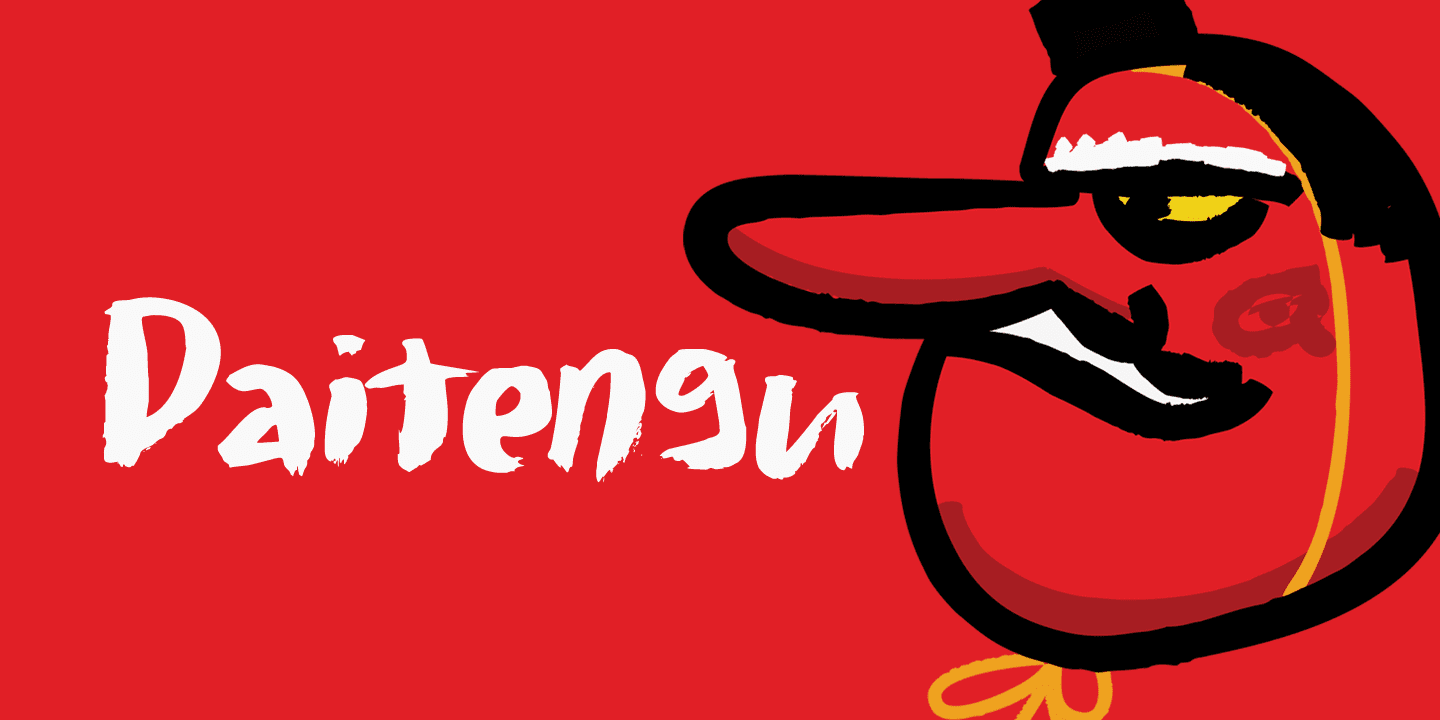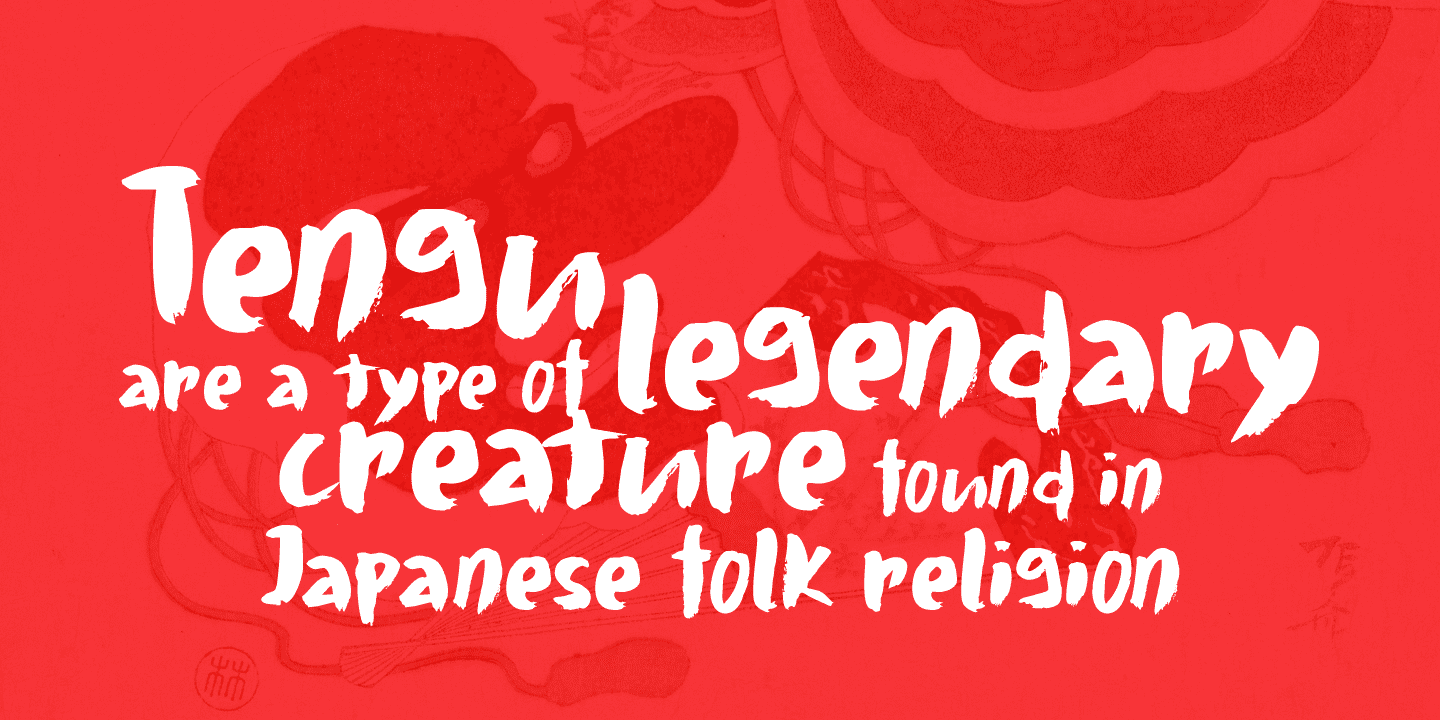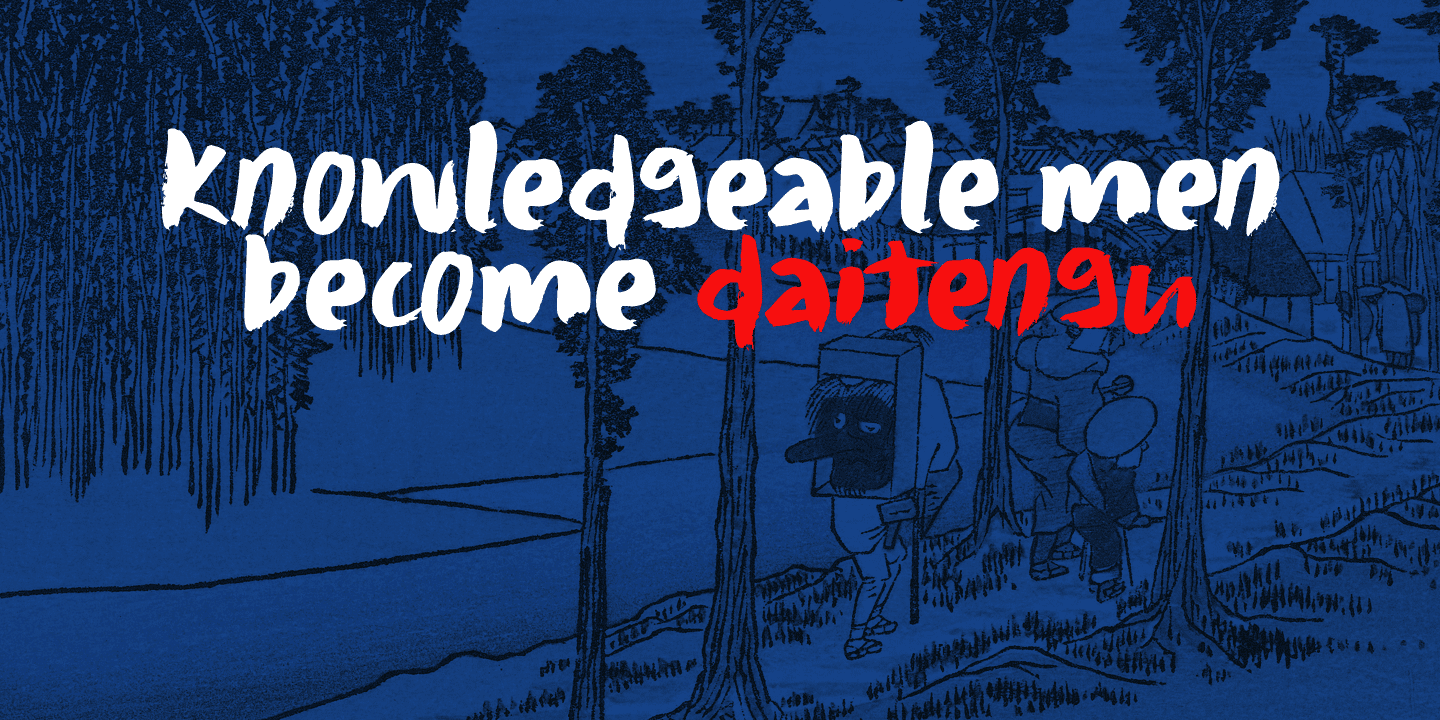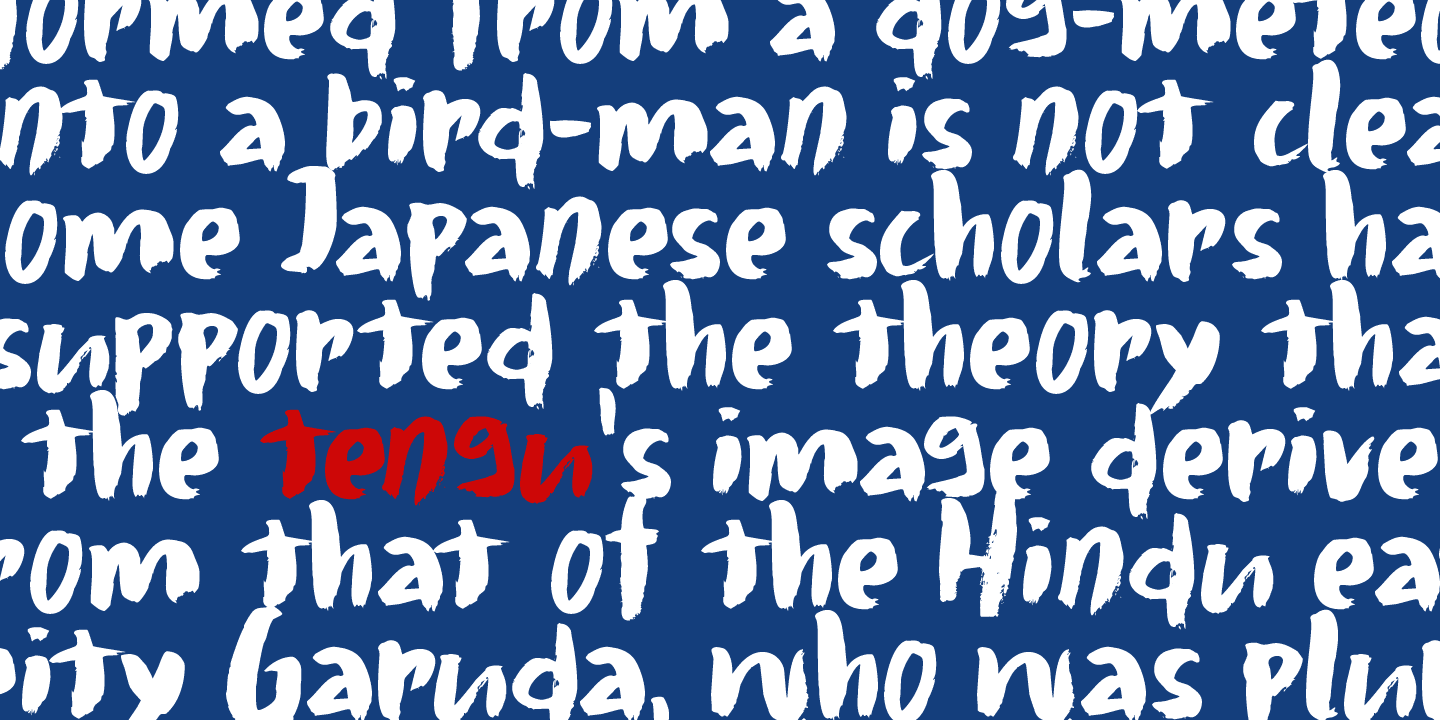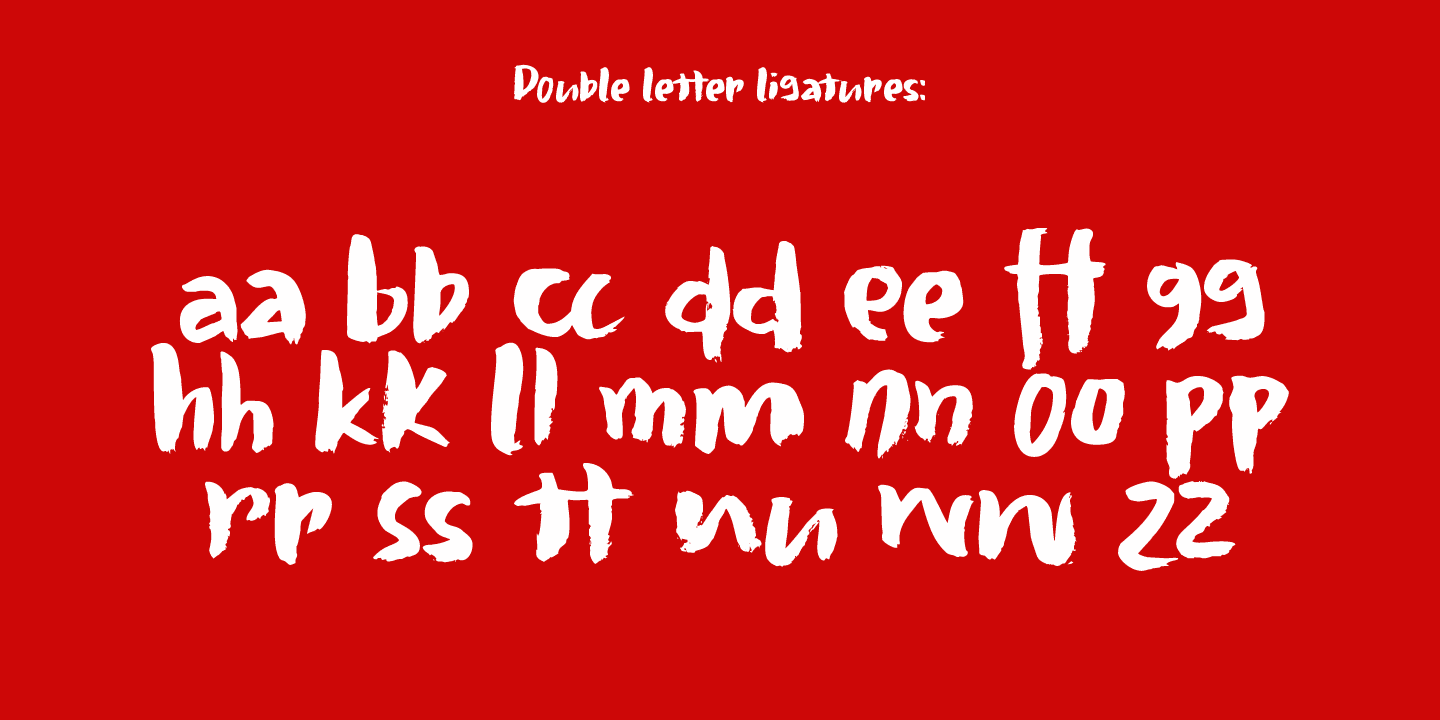
Daitengu (1 font)
So, now you know about tengu, end of the history lesson!
Daitengu is an epic brush font. I made it with a soft brush and China ink (like most of my brush fonts), but instead of forming the glyphs I saw in my head, I let the brush do the work. A more ‘zen’ approach to brushwork if you will! The result is a messy, organic brush font with a lot of spirit.
Comes with diacritics and double letter ligatures.